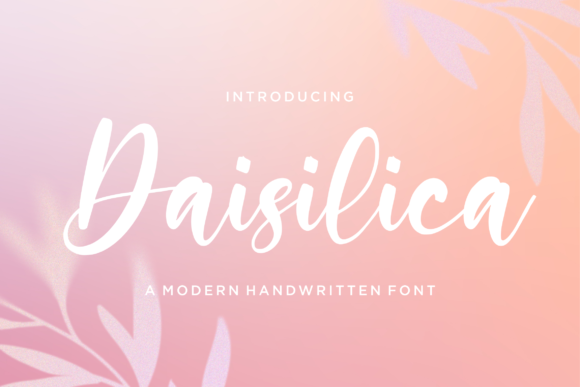
Introducing Daisilica, the exquisite handwritten font that will captivate your senses and elevate your designs to unprecedented heights.
Immerse yourself in the beauty of Daisilica's enchanting curves and graceful loops, meticulously crafted to evoke a sense of effortless elegance and timeless charm.
With Daisilica gracing your creations, prepare to witness the transformation of ordinary words into captivating expressions of art. Let its flowing strokes dance across your product packaging, branding efforts, and social media platforms, captivating your audience and leaving a lasting impression.
Daisilica's versatility extends beyond its aesthetic appeal, making it the perfect companion for a myriad of design endeavors. Whether you seek to craft eye-catching product packaging, establish a distinctive brand identity, or add a touch of sophistication to your social media presence, Daisilica stands ready to elevate your creations.
For those seeking a font that exudes warmth and intimacy, Daisilica is an ideal choice. Its casual yet refined appearance lends itself perfectly to wedding invitations, heartfelt letters, and any occasion where a touch of handwritten charm is desired.
Embrace the allure of Daisilica today and embark on a creative journey where every word becomes a masterpiece. Let its elegant strokes ignite your imagination and transport your designs to a realm of beauty and sophistication.